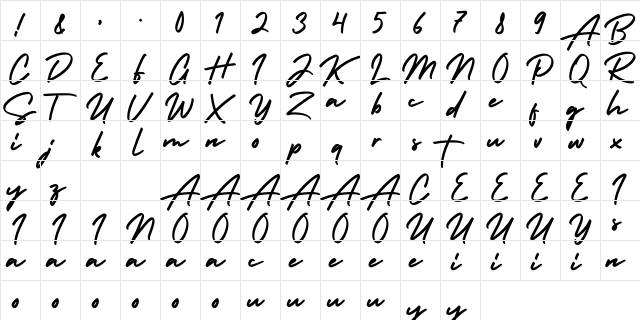
HolidayFree Regular
Design Context for HolidayFree Typeface
HolidayFree is a composed and adaptable typeface that performs quietly and consistently across a wide range of design contexts.